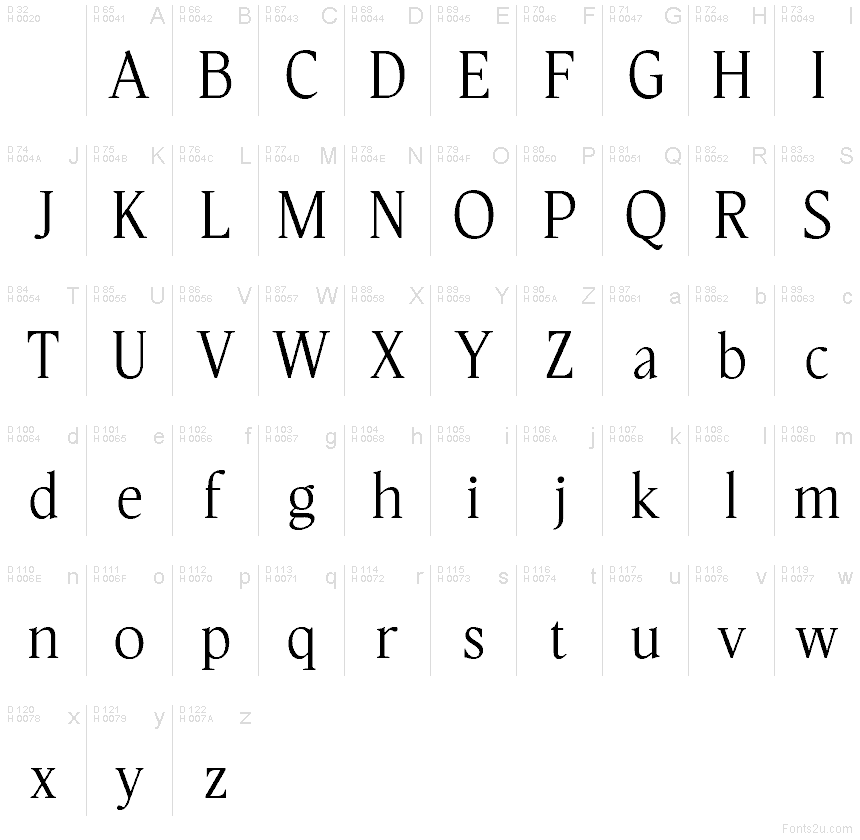
CS Quinzel Regular Demo
CS Quinzel font by Craft Supply Co. is a classic serif font inspired by ancient fonts that are characterized by elegance, professionalism, formality, and timelessness. The structure of the letters forms an exquisite alphabet where each character has a charm on its own and puts extra details into your visual communication.
CS Quinzel Demo